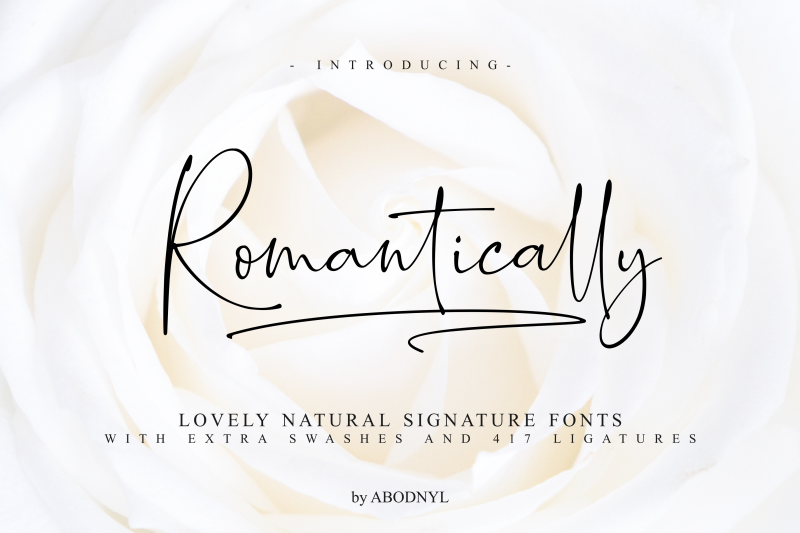
Romantically Script Font
A lovely natural signature font by Abo Daniel. Introducing Romantically Font. Romantically – a new modern & fresh script with a stylish handwritten and script style make this font looks natural, classy, natural and perfect for any awesome projects that need handwriting taste.
Romantically font is perfect for many different project such as logos & branding, invitation, stationery, wedding designs, social media posts, advertisements, product packaging, product designs, label, photography, watermark, special events or anything.